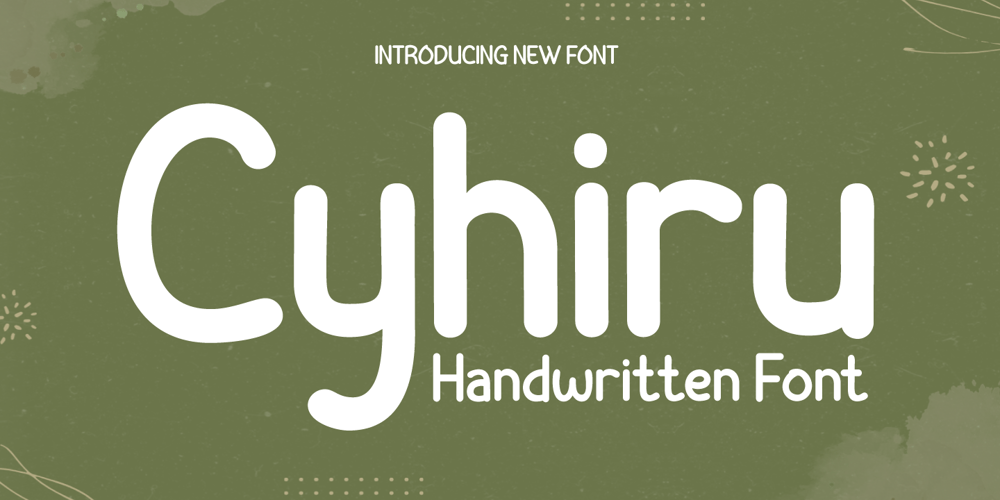
Cyhiru
Cyhiru font
Cyhiru Font Family was designed by Rozikan and published by Twinletter. Cyhiru contains 1 styles and family package options. Introducing “Cyhiru Font” – The Artistry of Handwriting Meets Contemporary Design.Cyhiru Font is your gateway to infusing a personal and distinctive touch into your creative projects. This font seamlessly marries the warmth of handwritten text with a modern aesthetic.What’s Included : File font All glyphs Iso Latin 1 Alternate, Ligature Simple installations PUA Encoded Characters – Fully accessible without additional design software. Fonts include Multilingual support